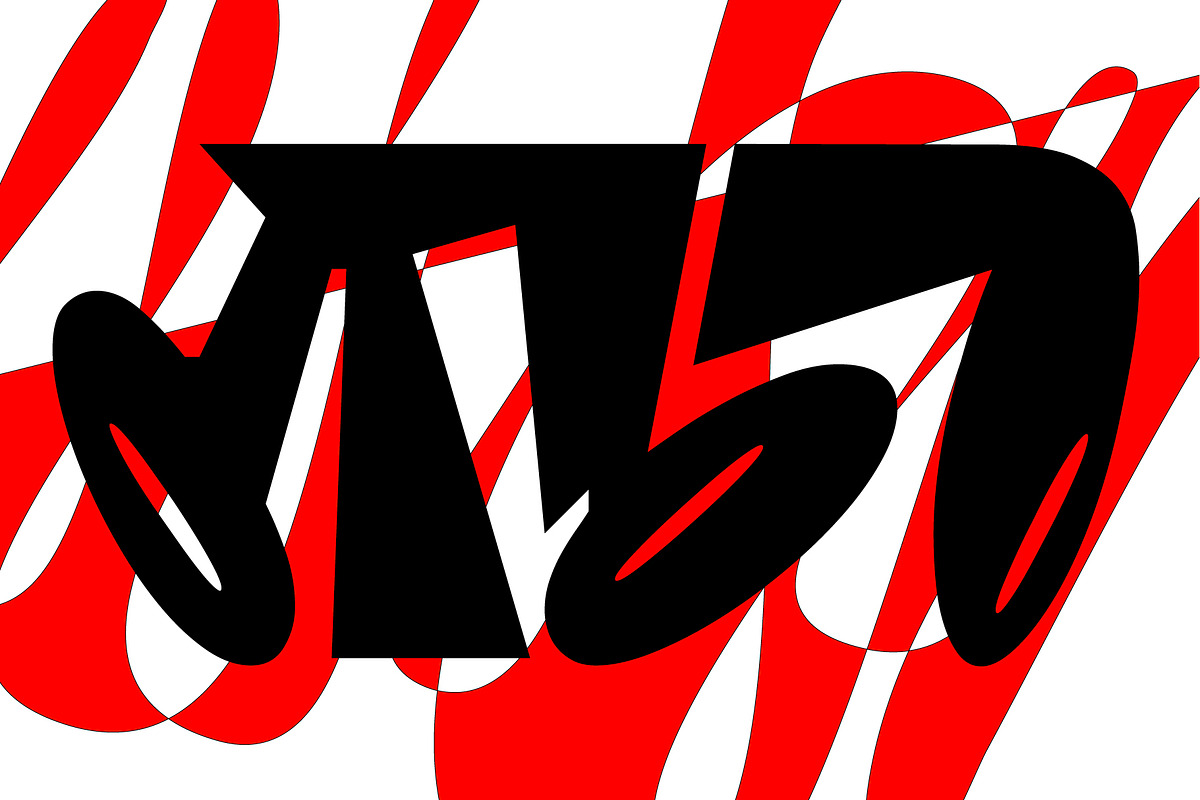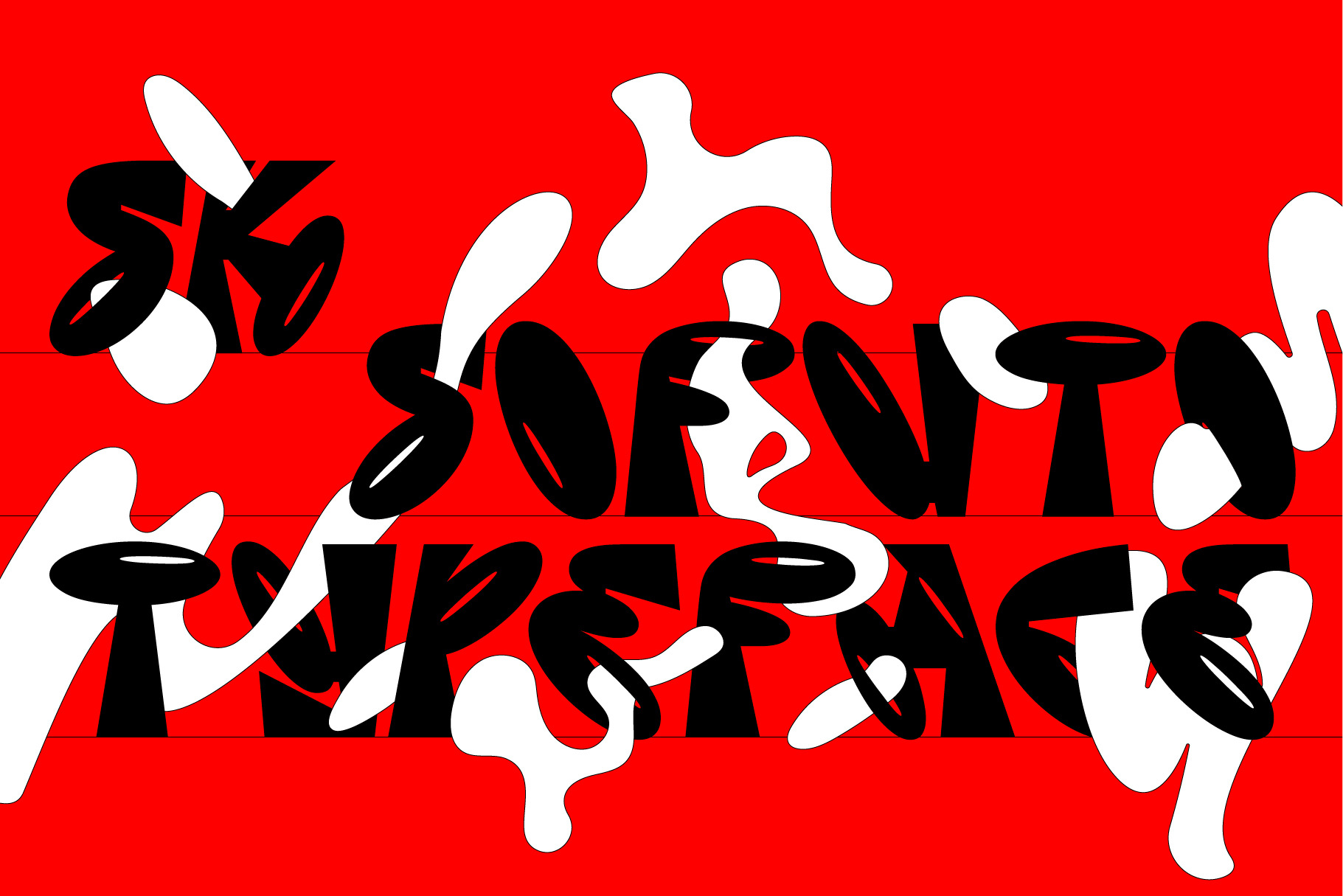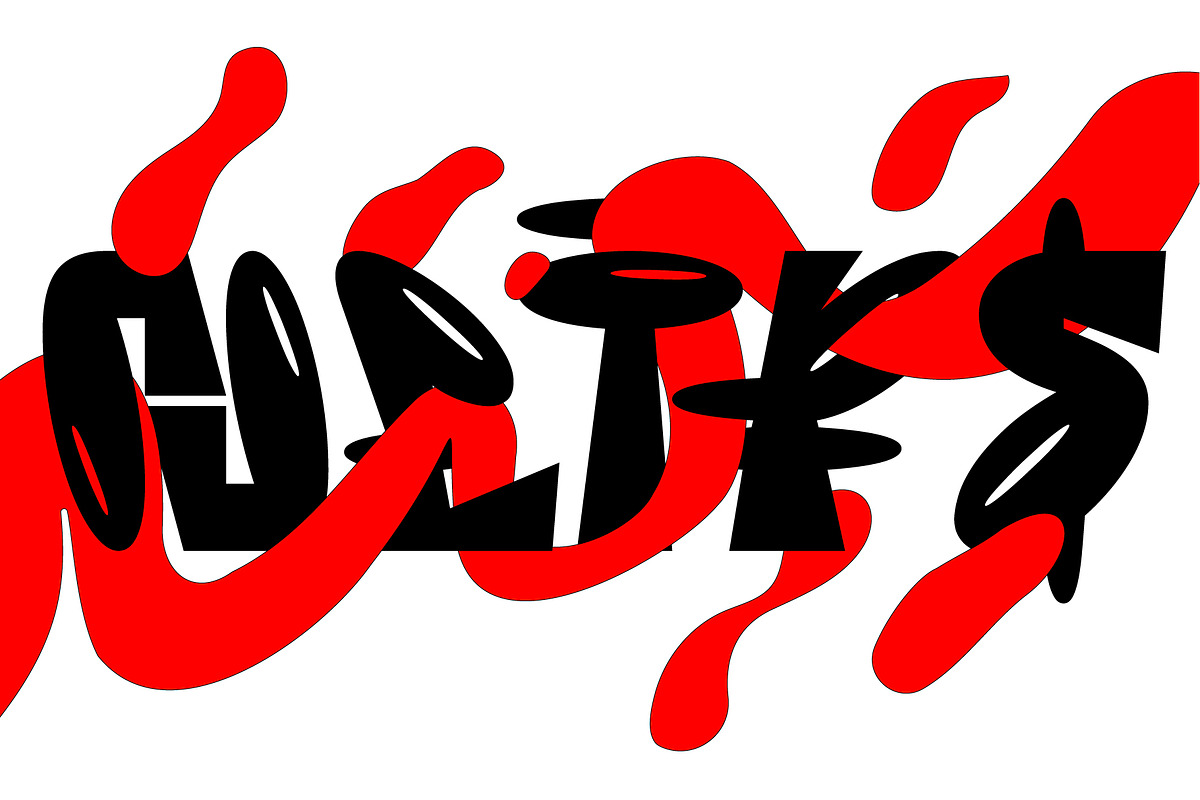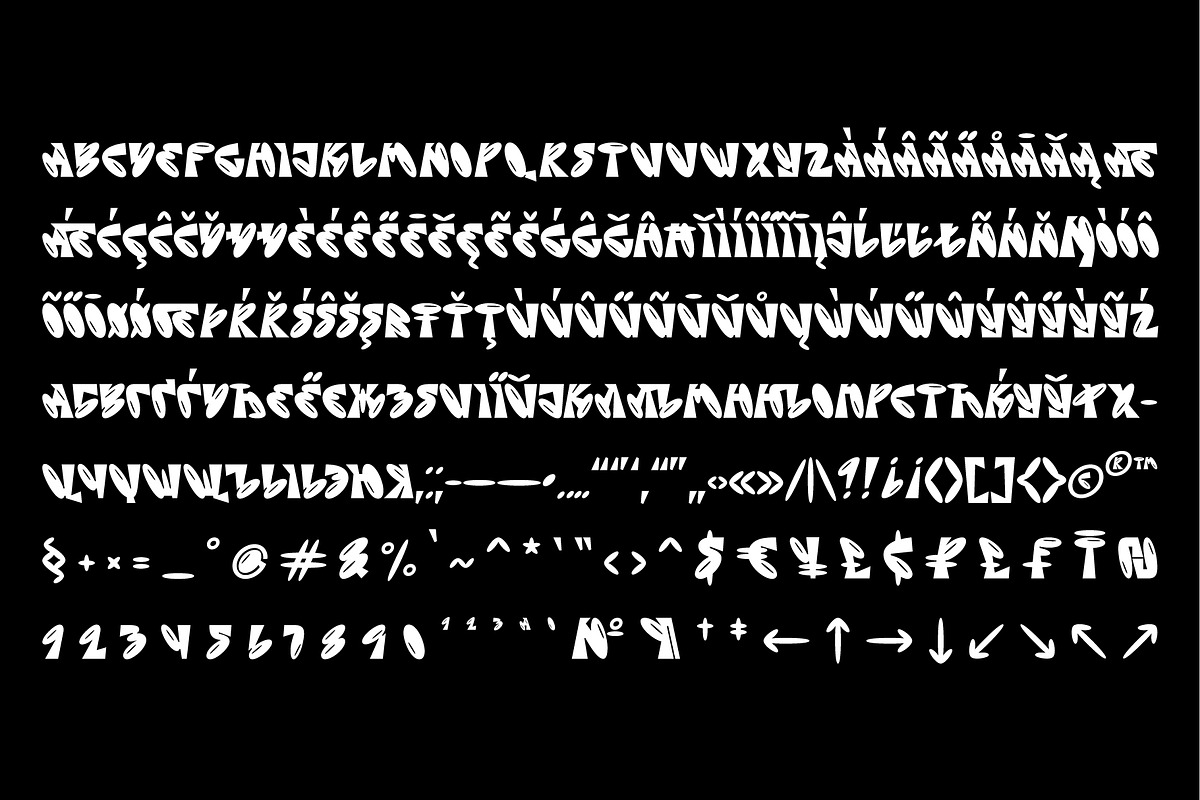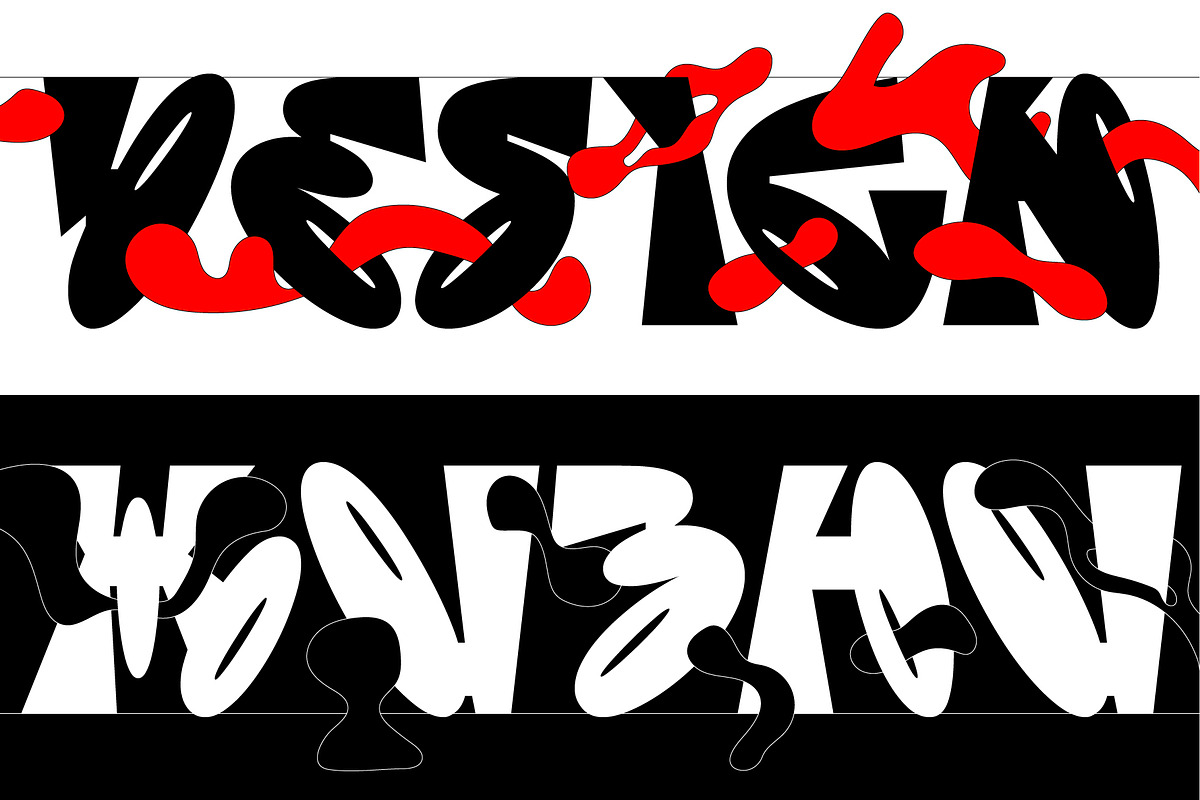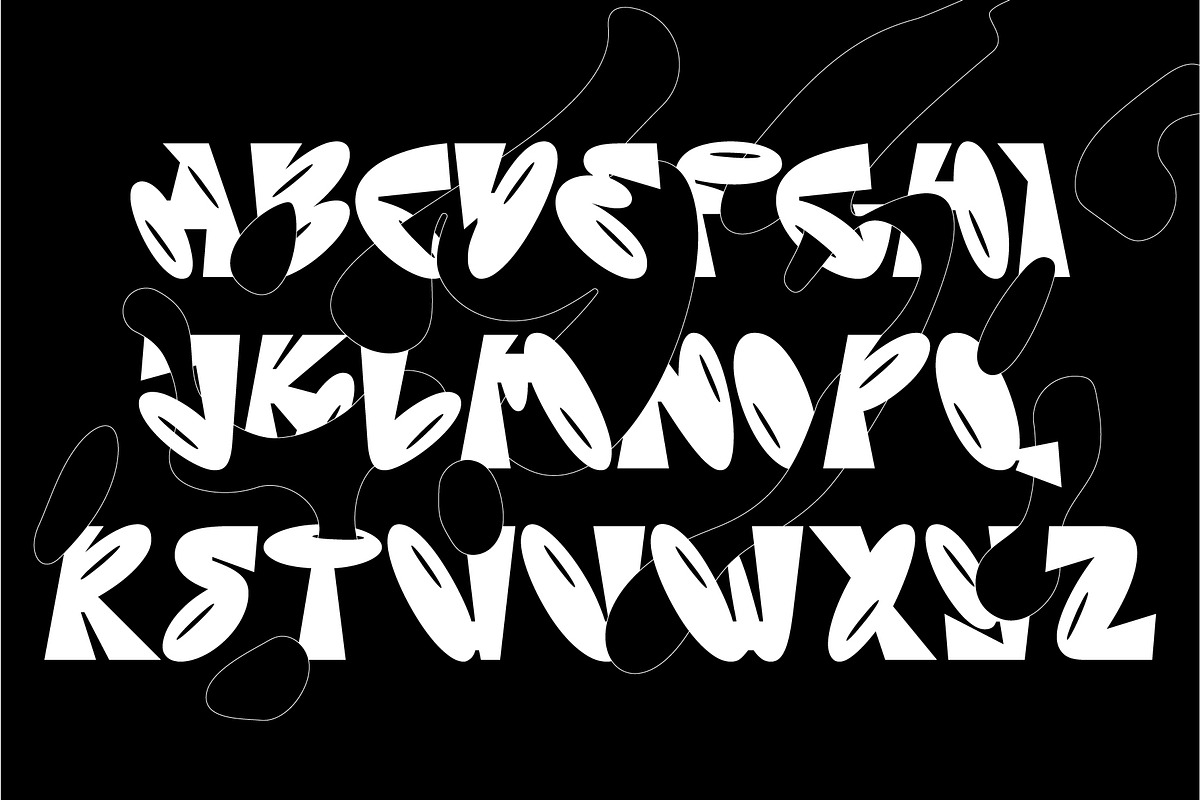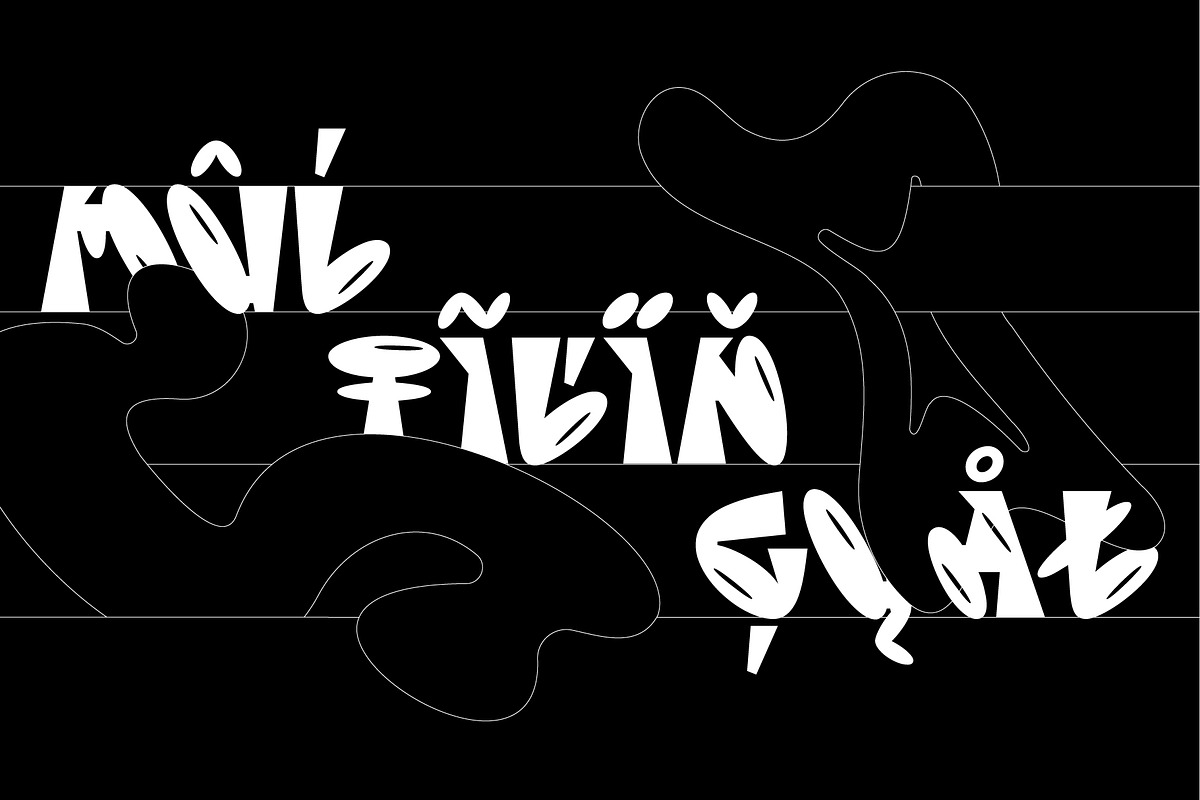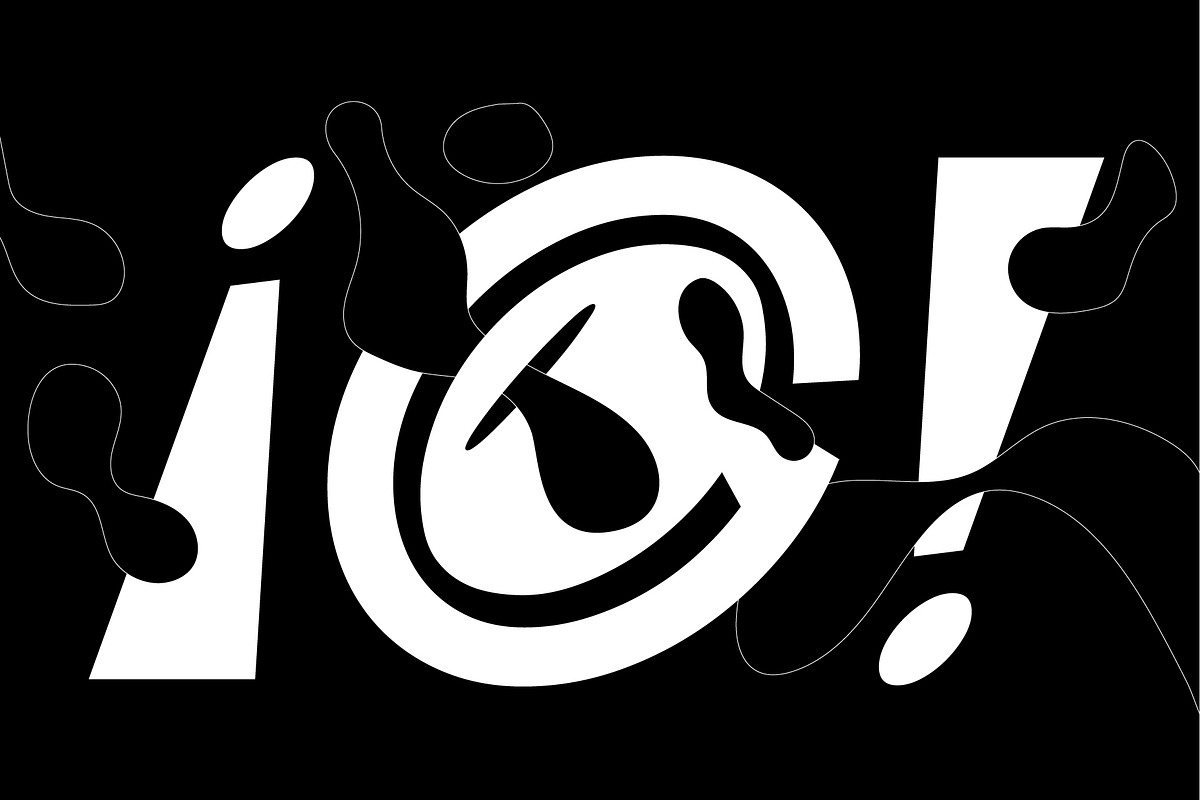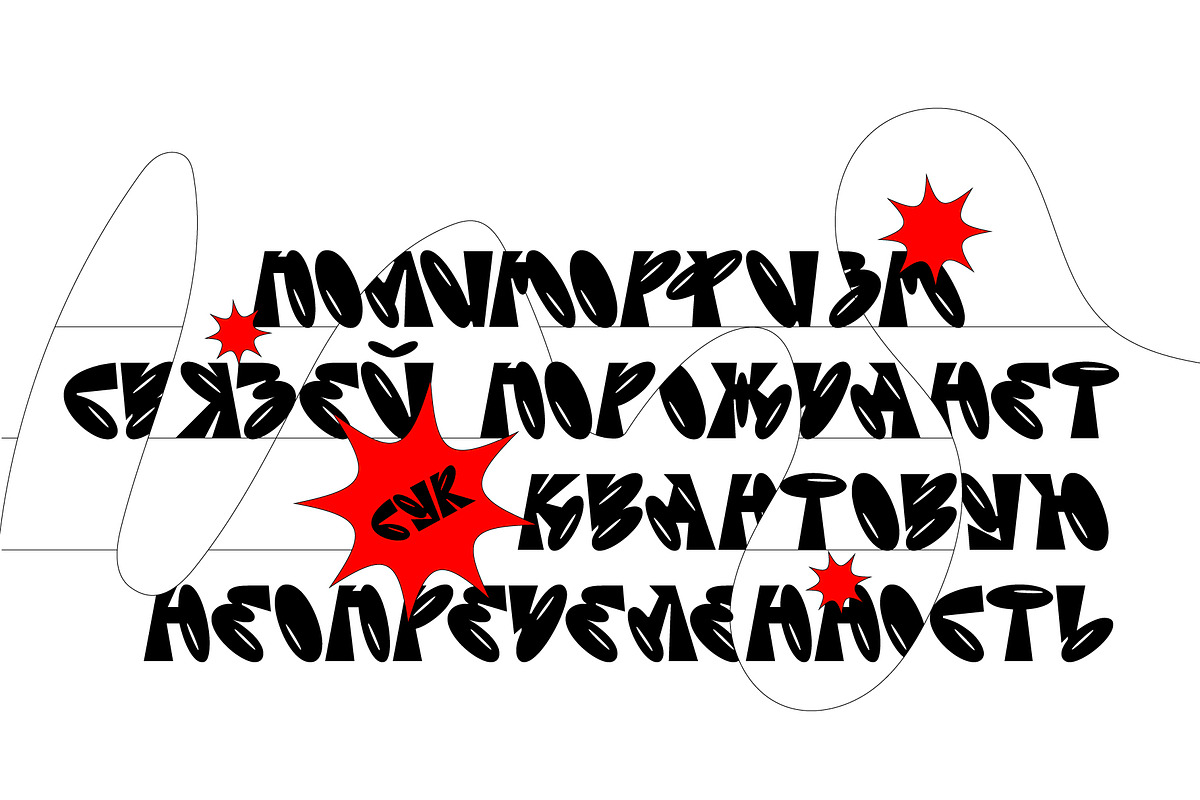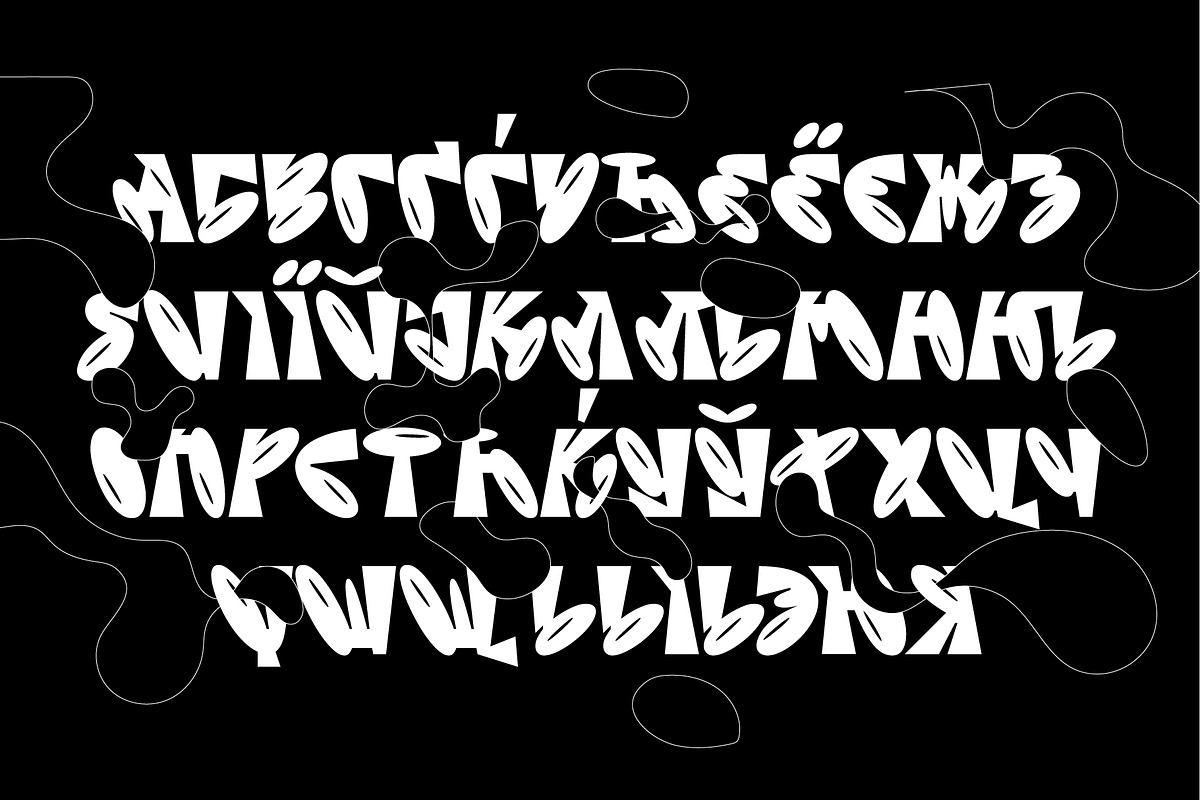
SK Sofuto — Bold Display Font
SK Sofuto is a bold display typeface inspired by graffiti culture. Striking and unusual forms of the font distinguish it and do not allow you to forget about it. SK Sofuto is a typeface that cannot be unnoticed. It is bright, wicked, and screaming. The typeface supports multilingualism, namely Latin, both classical and extended, as well as Cyrillic! The SK Sofuto typeface will make your work noticeable and will fit perfectly in both poster and printing design, as well as in web design.